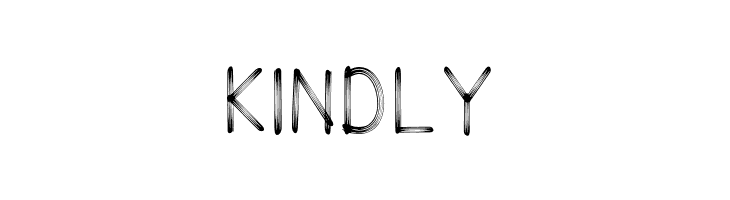
A bold, brush-style font with an energetic and artistic appearance.
A hand-drawn, sketch-like font with overlapping lines and a playful style.
A playful, hand-drawn font with overlapping lines and a sketch-like appearance.